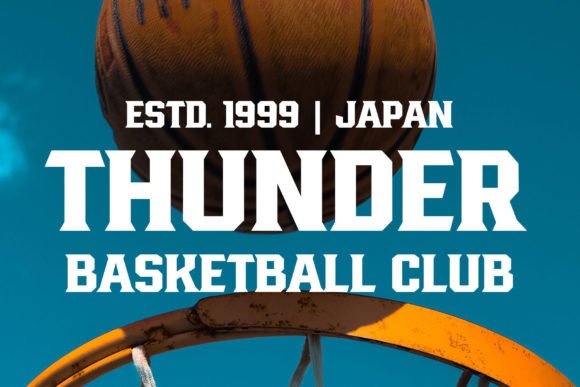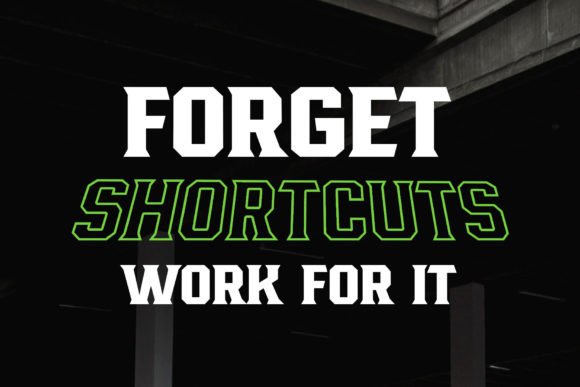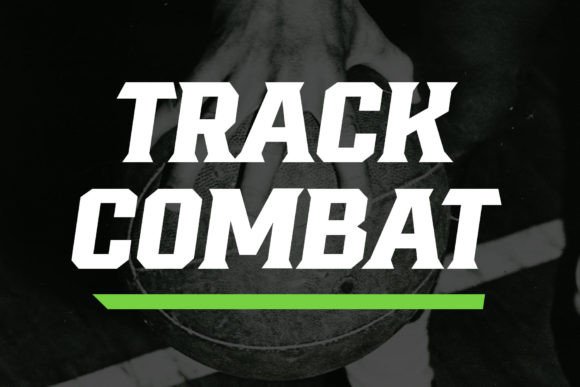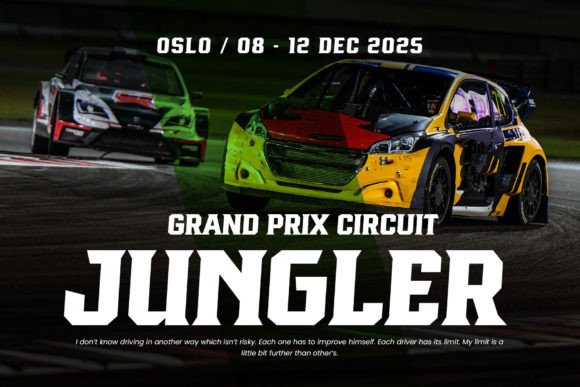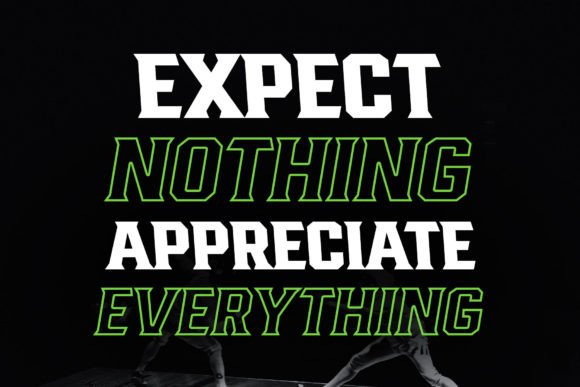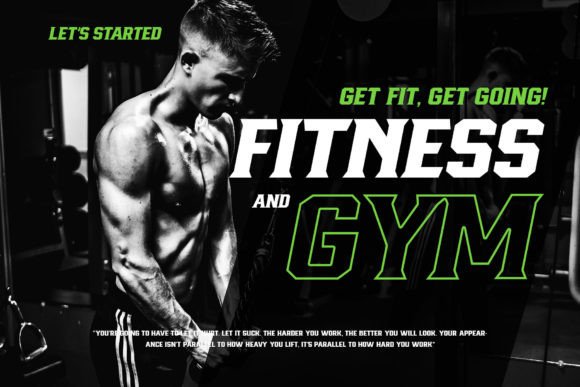
Introducing Bringas: The Ultimate Slab Serif Font for Bold Designs
I’ll never forget the design project that led me to discover Bringas. I was working on a sports brand campaign, and my client wanted a font that embodied power, energy, and a hint of nostalgia. I scoured the internet, tried countless fonts, but nothing seemed to fit the bill. That was until I stumbled upon Bringas – a strong slab serif font that perfectly blended 90s typography and vintage design. In this article, I’ll share my experience with Bringas, its features, and how to make the most of this incredible font.
A Personal Review of Bringas
What I Love About Bringas ✨
- 💪 **Strong and Powerful**: Bringas exudes confidence and energy, making it perfect for sports, tech, and bold designs.
- 🏈 **Sporty and Energetic**: Its unique blend of techno and sporty styles sets it apart from other slab serif fonts.
- 🌎 **Multilingual Support**: With support for multiple languages, Bringas is an excellent choice for global brands.
- 🎨 **Extra Special Characters**: The font comes with additional special characters, giving you more creative freedom.
While Bringas is an excellent font, there are a few things to keep in mind:
- 🤔 **Limited Use Cases**: Bringas is an all-caps font, which might limit its use in certain projects requiring lowercase text.
- ⚠️ **Glyph Access**: Some users might find it tricky to access the additional glyphs and ligatures, but this can be easily resolved with PUA encoding.
The Story Behind Bringas
Bringas was designed with the goal of creating a font that embodied the spirit of 90s typography and vintage design. The designer aimed to craft a font that was both strong and energetic, perfect for sports and tech brands. With its unique blend of styles, Bringas has become a go-to font for designers seeking a bold and confident typeface.
Q: What is PUA encoding, and how does it benefit Bringas users?
A: PUA (Private Use Area) encoding allows users to access additional glyphs and ligatures easily, making it simpler to work with fonts like Bringas.
Q: Is Bringas suitable for digital and print designs?
A: Absolutely! Bringas is designed to work well in both digital and print environments, making it a versatile font for various applications.
Q: Can I use Bringas for multilingual projects?
A: Yes, Bringas supports multiple languages, making it an excellent choice for global brands and multilingual projects.